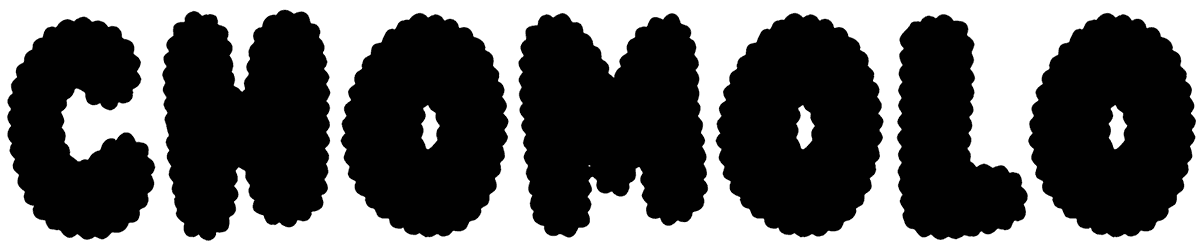
Chomolo Font
Your young audiences will definitely fall in love with the smooth cactus shape design of Chomolo. This all-caps cloud font would look great on a wide range of creative projects such as children’s book covers, illustrations, the user interface of video games, and menus.
With the help of this amazing typeface, you can share a sense of love, dreaminess, happiness, and playfulness with the viewers and impact them in no time.